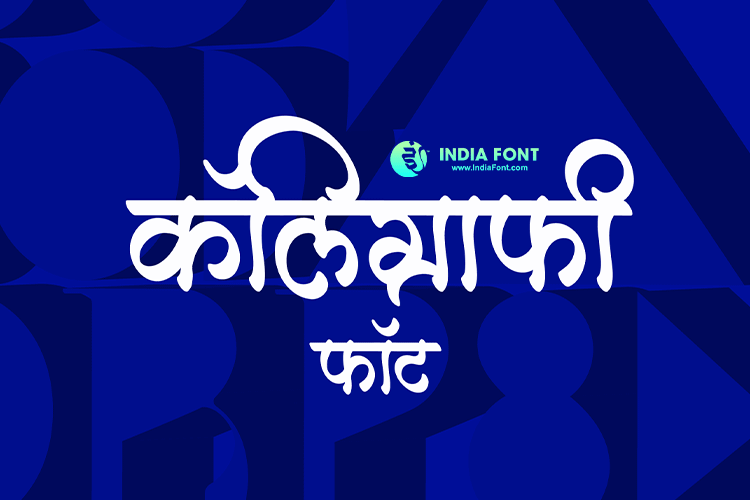
Typography is a powerful tool in design, and Indian style fonts bring a unique cultural flavor to any project. Whether you're designing invitations, posters, or digital art, these fonts help you capture the essence of India's diverse traditions. This guide explores some of the best Indian style fonts, how to use them effectively, and where to download them for free.
Why Choose Indian Style Free Fonts?
Indian fonts offer a blend of traditional and modern aesthetics, making them versatile for various uses. Here are some reasons to incorporate Indian style fonts into your designs:
Cultural Representation
Perfect for projects that need to reflect Indian heritage and style.
Versatility
Works well for both digital and print formats, from wedding cards to branding.
Regional Support
Many Indian fonts cater to regional languages, ensuring inclusivity in communication.
Wide Selection
From regional scripts to modern styles, there's a font for every need.
Categories of Indian Style Fonts
1. Traditional Indian Fonts
These fonts draw inspiration from classic calligraphy and traditional scripts. Ideal for cultural events, heritage branding, or festive projects.
Popular Traditional Fonts:
Classic elegance for traditional designs with bold confident calligraphy
Calligraphy
Architectural inspiration with cultural roots and elegant design
Traditional
Spiritual and traditional aesthetics perfect for cultural projects
Traditional
Perfect for religious and cultural content with sacred aesthetics
Traditional
Graceful traditional letterforms with elegant cultural expression
Traditional
Epic storytelling typography inspired by ancient Indian literature
Traditional2. Modern Indian Fonts
For contemporary designs, modern Indian fonts blend tradition with a sleek aesthetic. They're ideal for logos, websites, and advertisements.
Popular Modern Fonts:
Contemporary elegance with cultural touch for modern branding
Modern
Compassionate design for modern projects with gentle aesthetics
Modern
Clean lines with traditional essence perfect for modern layouts
Modern
Life and vibrancy in modern typography for dynamic designs
Modern
Gentle curves for contemporary designs with soft modern appeal
Modern
Handcrafted modern aesthetics blending artisanal touch with clean design
Modern3. Decorative Indian Fonts
These fonts are more playful and creative, often used for posters, advertisements, or themed designs.
Popular Decorative Fonts:
Natural handwritten charm with authentic personal touch
Decorative
Casual and approachable style perfect for friendly designs
Decorative
Authentic handcrafted feel with organic decorative elements
Decorative
Bold statement font for impactful designs and powerful messaging
Decorative
Pride and elegance combined in sophisticated decorative typography
Decorative
Geometric meets traditional script in unique decorative style
DecorativeTop Platforms for Indian Style Fonts Free Download
1. IndiaFont's Free Collection
IndiaFont offers a wide selection of free and premium Indian style fonts. These are specifically designed for artistic and calligraphic needs.
2. Google Fonts
Google Fonts has a robust collection of multilingual fonts, including those that support Indian scripts. Popular options include Poppins, Baloo, and Mukta.
3. Font Squirrel
Known for high-quality fonts, Font Squirrel features free options that cater to Indian styles.
4. DaFont
DaFont's extensive library includes decorative and traditional Indian-inspired fonts for various creative projects.
How to Use Indian Fonts Effectively
To get the most out of Indian style fonts, keep these tips in mind:
Font Pairing
Combine traditional fonts with modern sans-serif fonts for a balanced look.
Purpose-Driven Design
Use ornate fonts for headlines and simpler ones for body text.
Regional Relevance
Choose fonts that align with the language or cultural theme of your project.
Design Tips for Indian Style Typography
Best Practices:
- Hierarchy: Use decorative Indian fonts for main headings and cleaner fonts for subheadings
- Contrast: Ensure sufficient contrast between text and background for readability
- Spacing: Allow adequate spacing between letters and lines for Indian scripts
- Cultural Context: Match font styles to the cultural context of your project